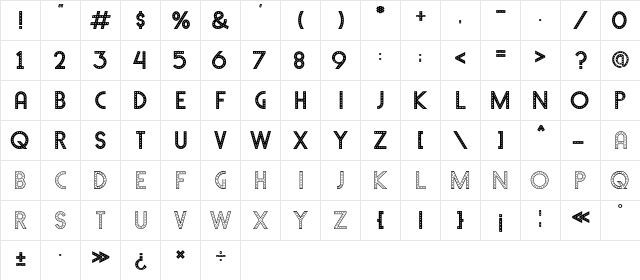
Neon Light Regular
Design Context for Neon Light Typeface
Neon Light channels digital-age aesthetics through its sharp, structured letterforms — ideal for brands that want to signal innovation. The delicate stroke weight brings airiness and refinement to layouts.